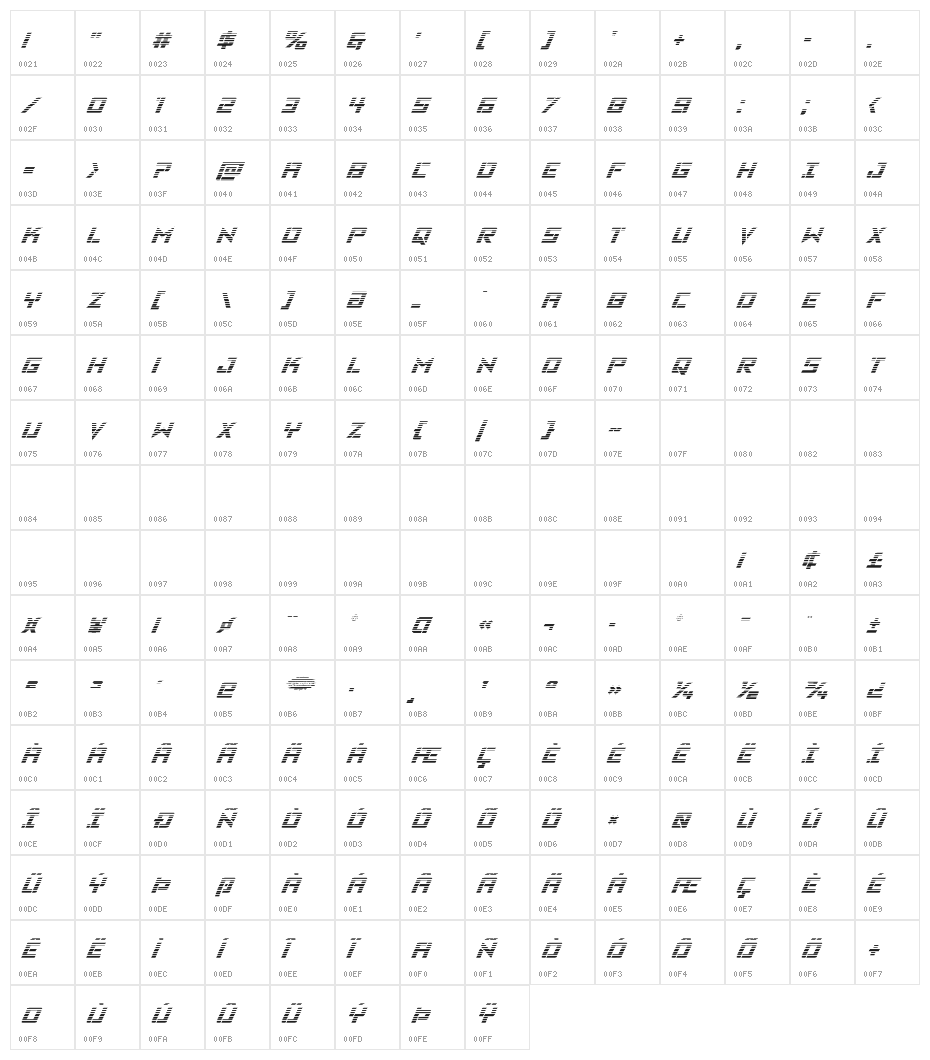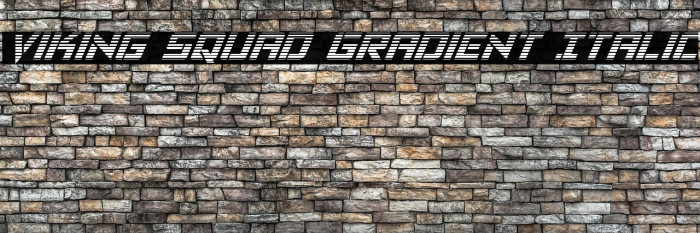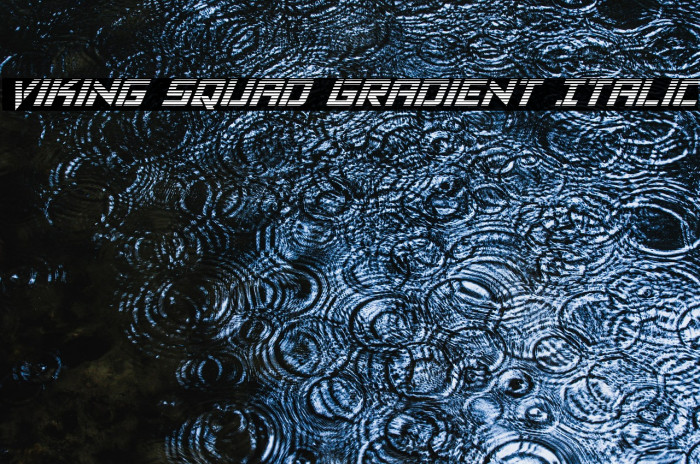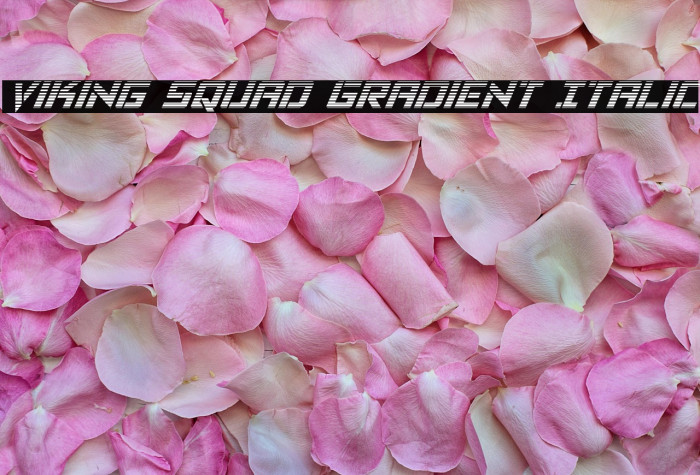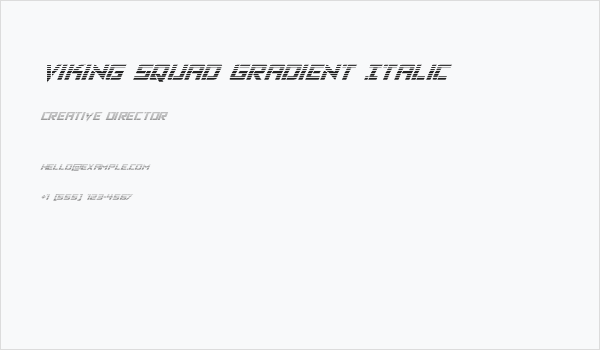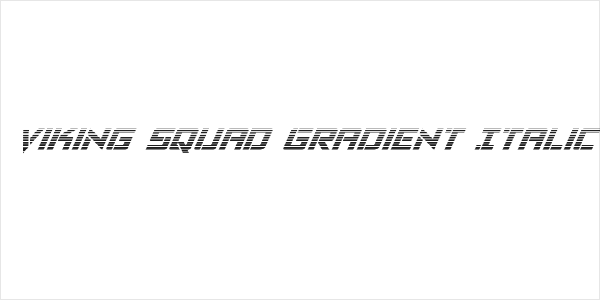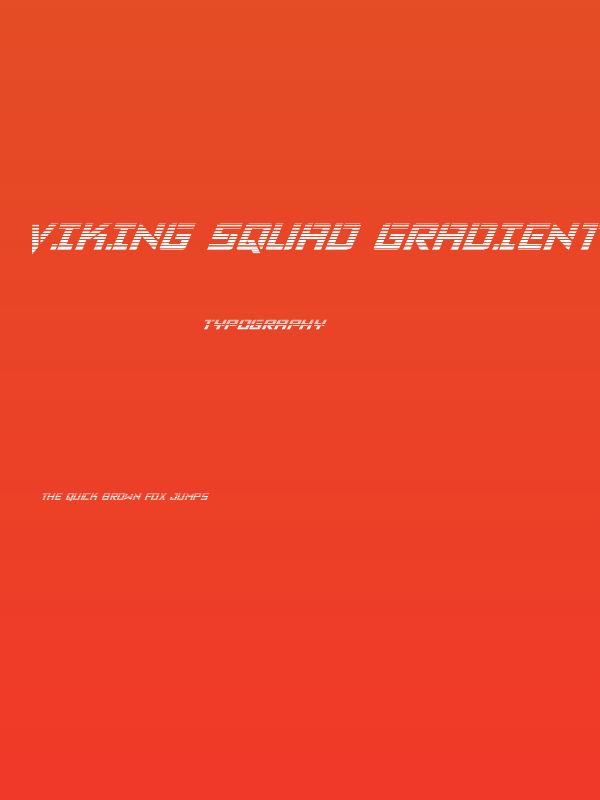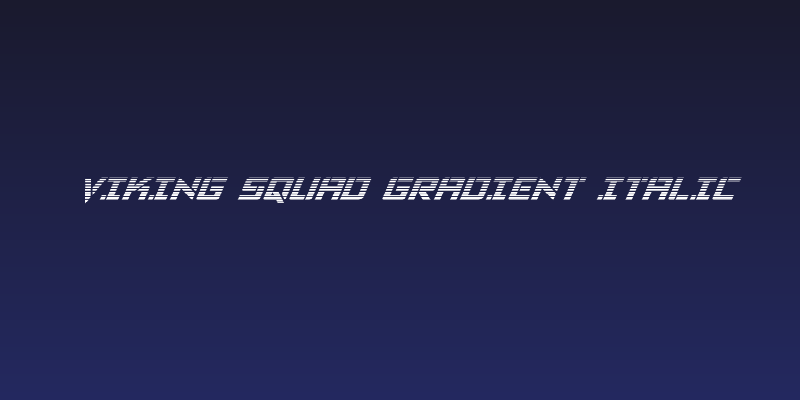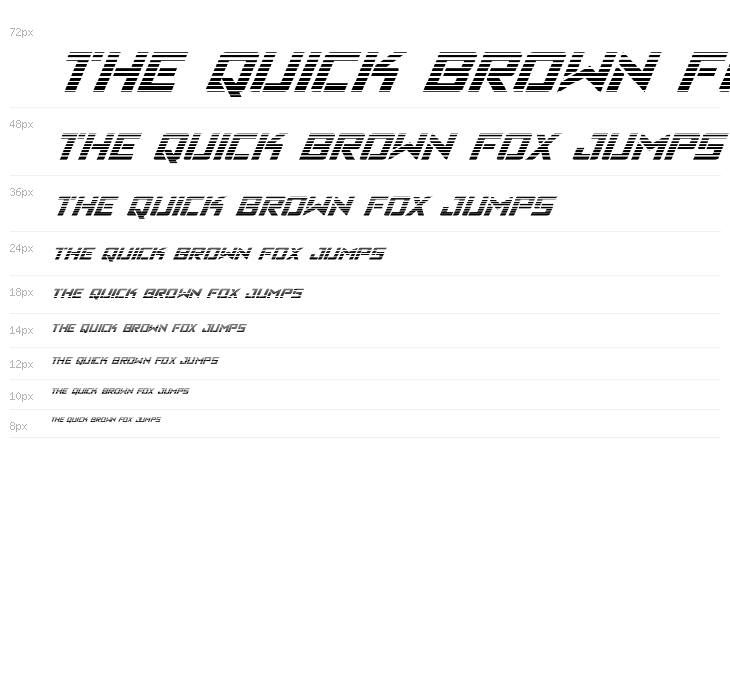
Viking Squad Gradient Italic Font
Viking Squad Gradient Italic Description
This font features a bold, italicized style with a unique gradient effect created by horizontal lines that form each character. The design is modern and dynamic, with a futuristic feel that is emphasized by the angular, geometric shapes of the letters. The uppercase and lowercase letters maintain a consistent style, and the numbers and special characters are designed to match the overall aesthetic. The font's distinct appearance makes it suitable for projects that require a strong visual impact.
| Proposed Projects | Ideal for video game titles, sci-fi movie posters, tech branding, and modern digital artwork. |